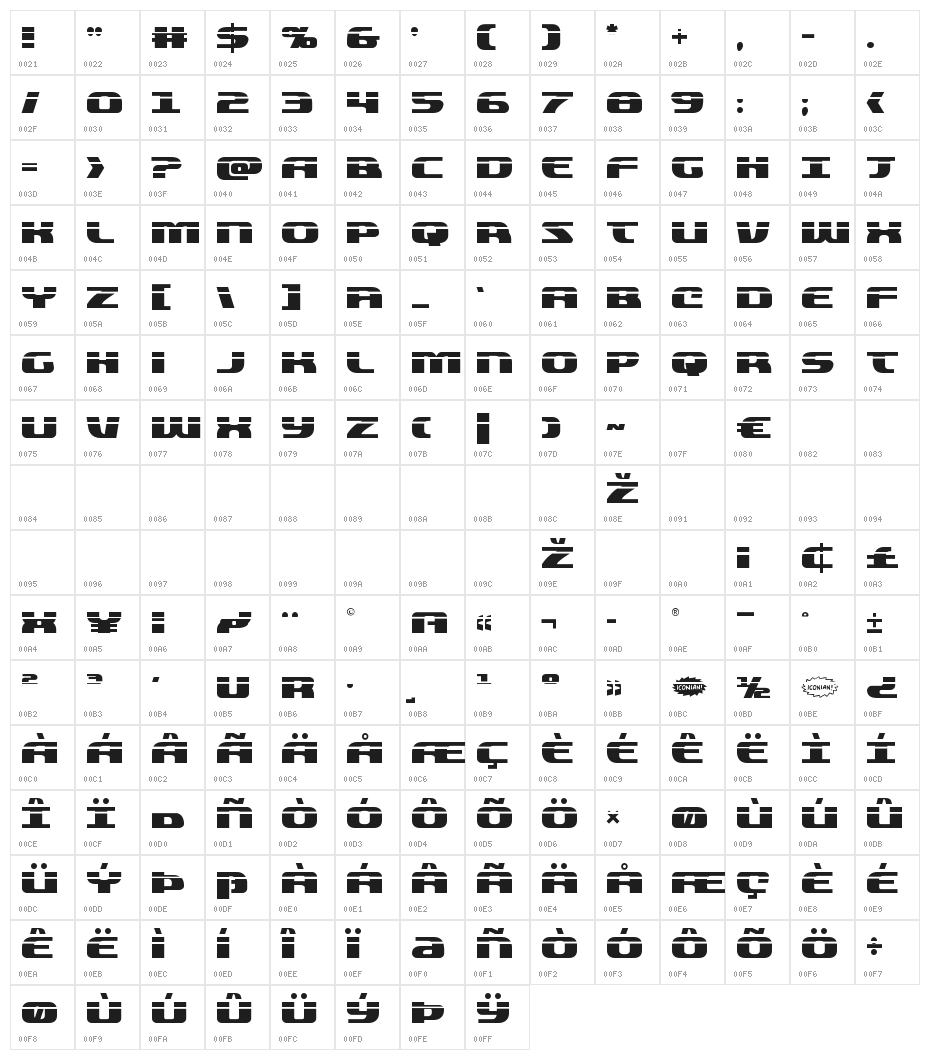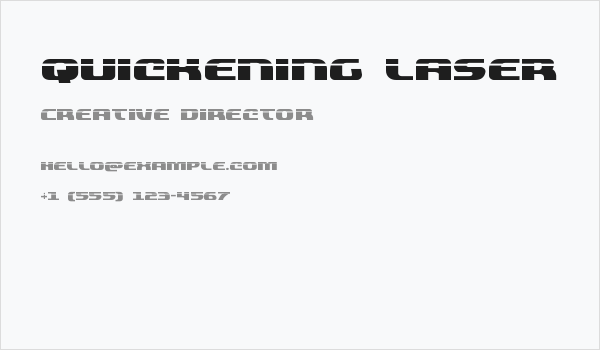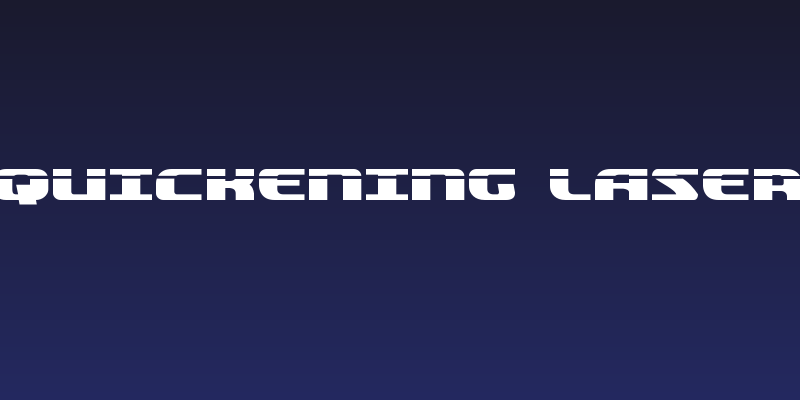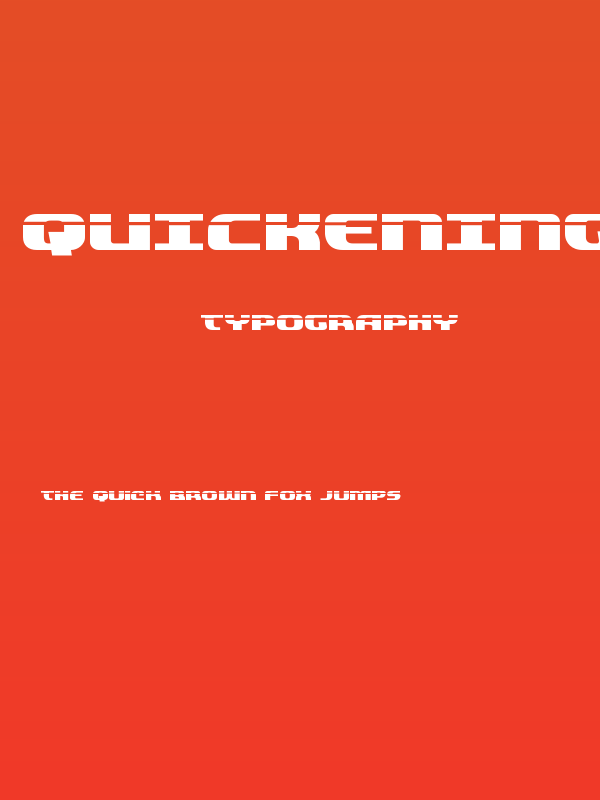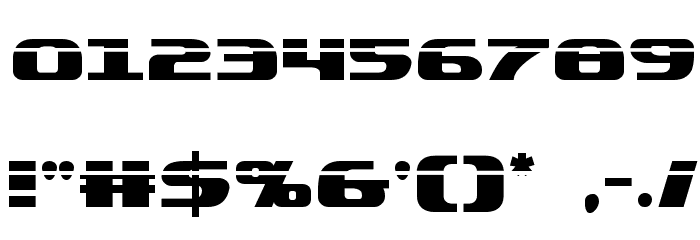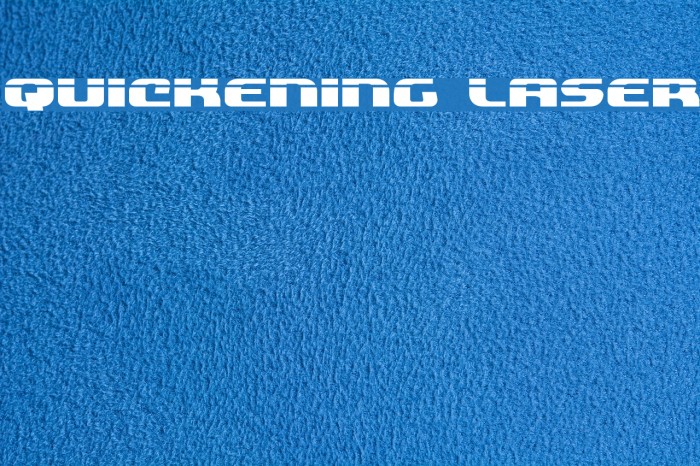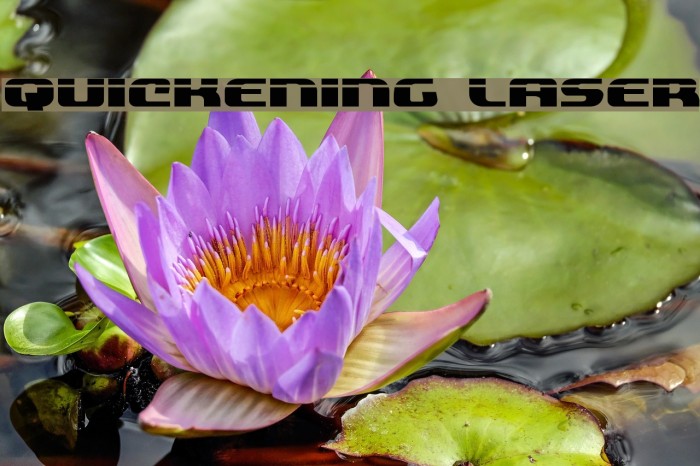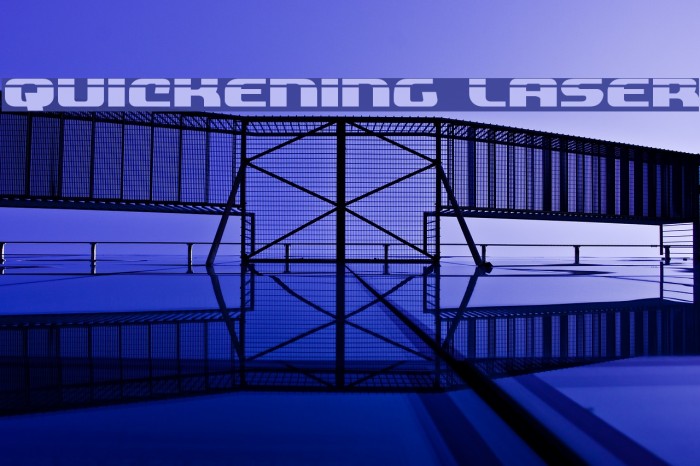
Quickening Laser Font
Quickening Laser Description
This font features a futuristic and bold design with a distinct geometric structure. Each character is crafted with sharp angles and a blocky appearance, giving it a technological and modern feel. The uppercase and lowercase letters maintain a consistent style, with the uppercase being slightly more pronounced. The numbers and special characters follow the same design principles, ensuring uniformity across all glyphs. The font's unique style makes it stand out, with a strong presence that commands attention.
QUICKENING-LASER UPPERCASE
QUICKENING-LASER LOWERCASE
QUICKENING-LASER OTHER CHARS